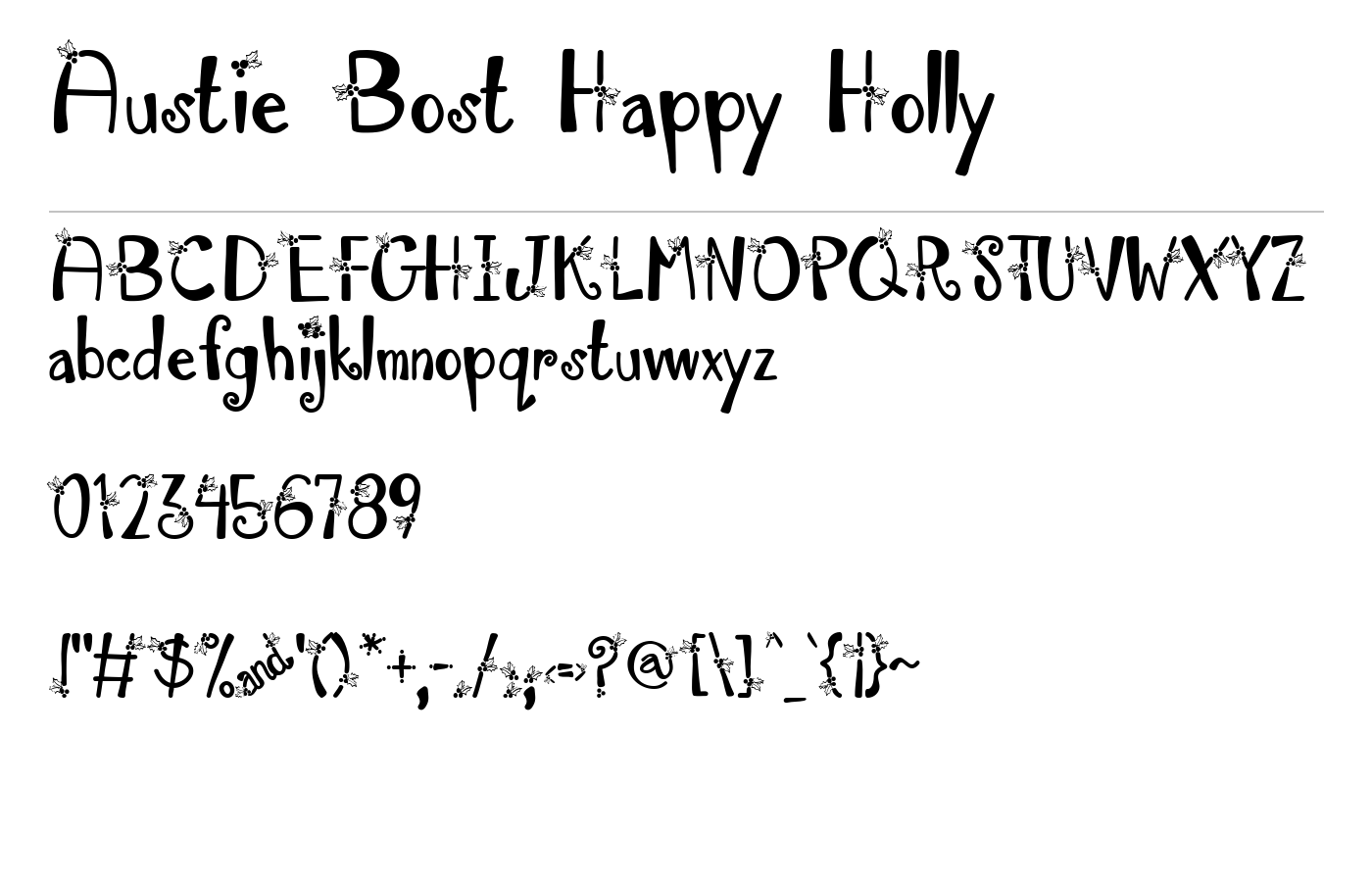
Austie Bost Happy Holly is a playful, decorative sans serif font with a whimsical, hand-drawn style that features festive holly accents on many characters. Its tall, narrow letterforms and uneven strokes create a lively and casual feel, perfect for holiday-themed designs, greeting cards, and fun branding. This font works best in headlines, invitations, and packaging where a cheerful and unique holiday spirit is desired.
Austie Bost Happy Holly Font
About Austie Bost Happy Holly Font
| Font family | Austie Bost Happy Holly Font |
| Designer | Austin Owens |